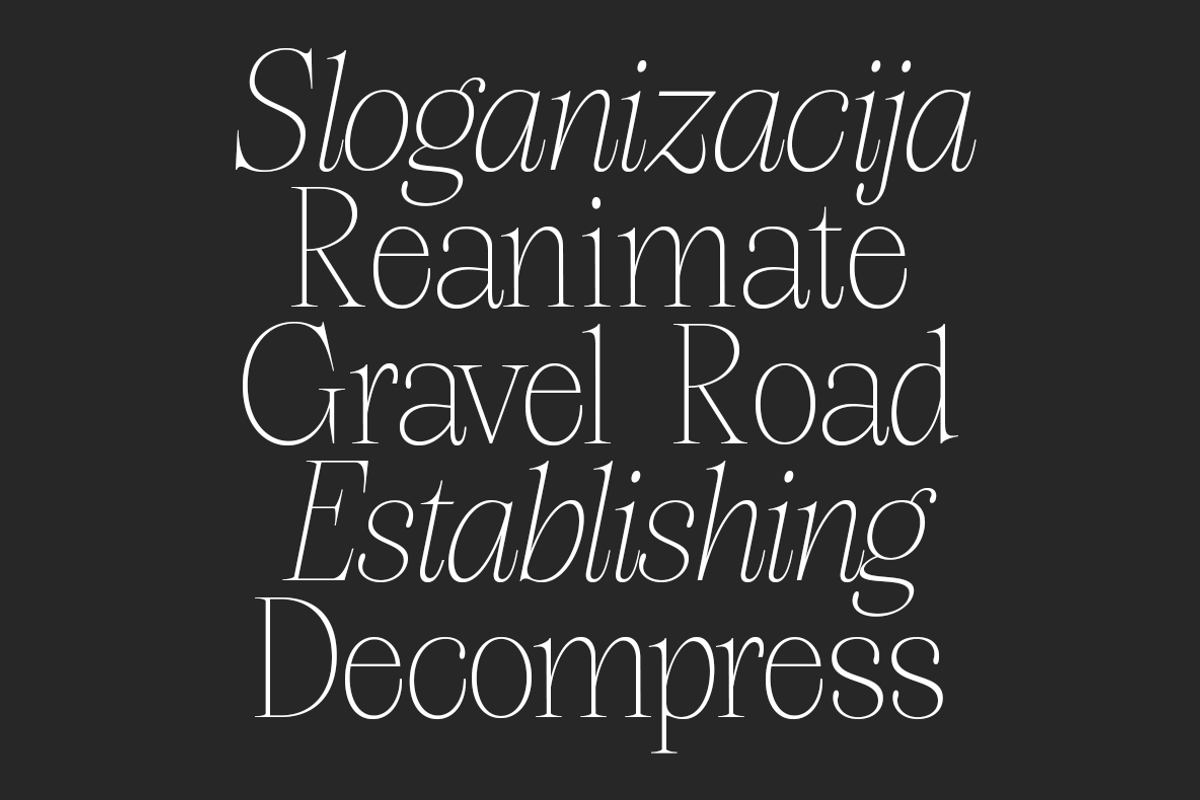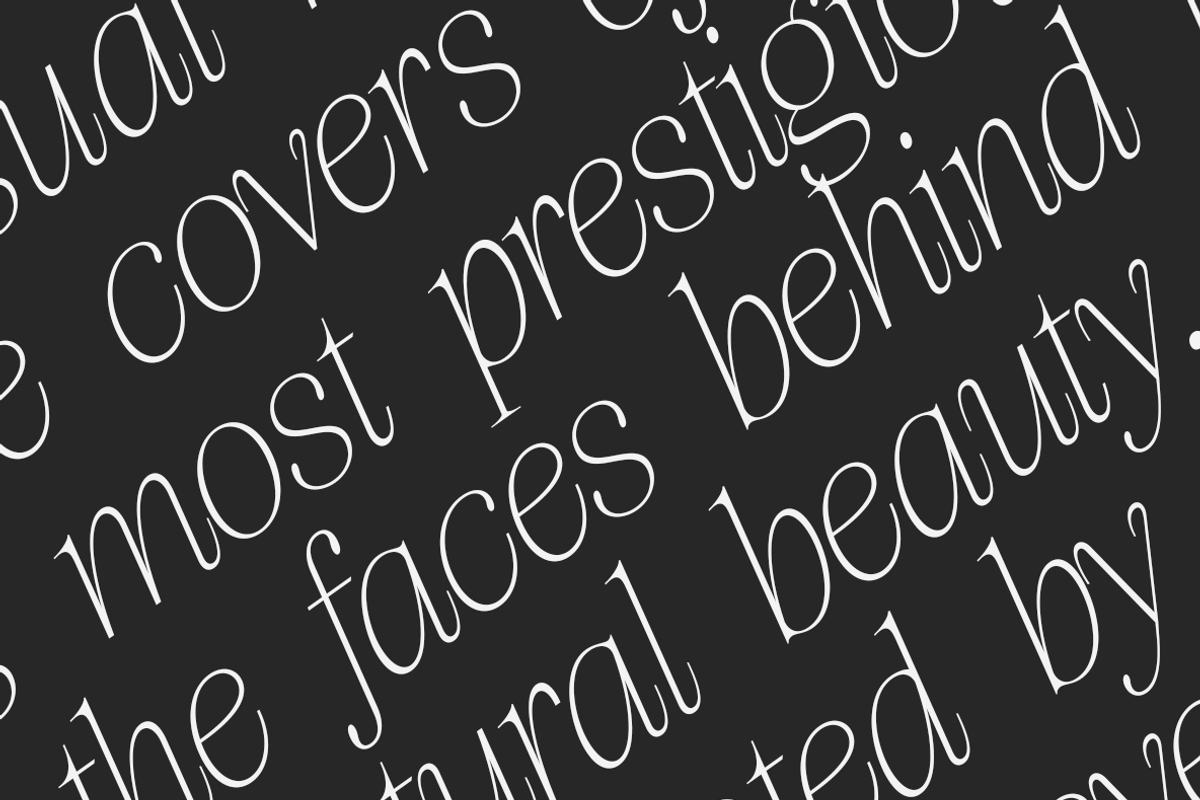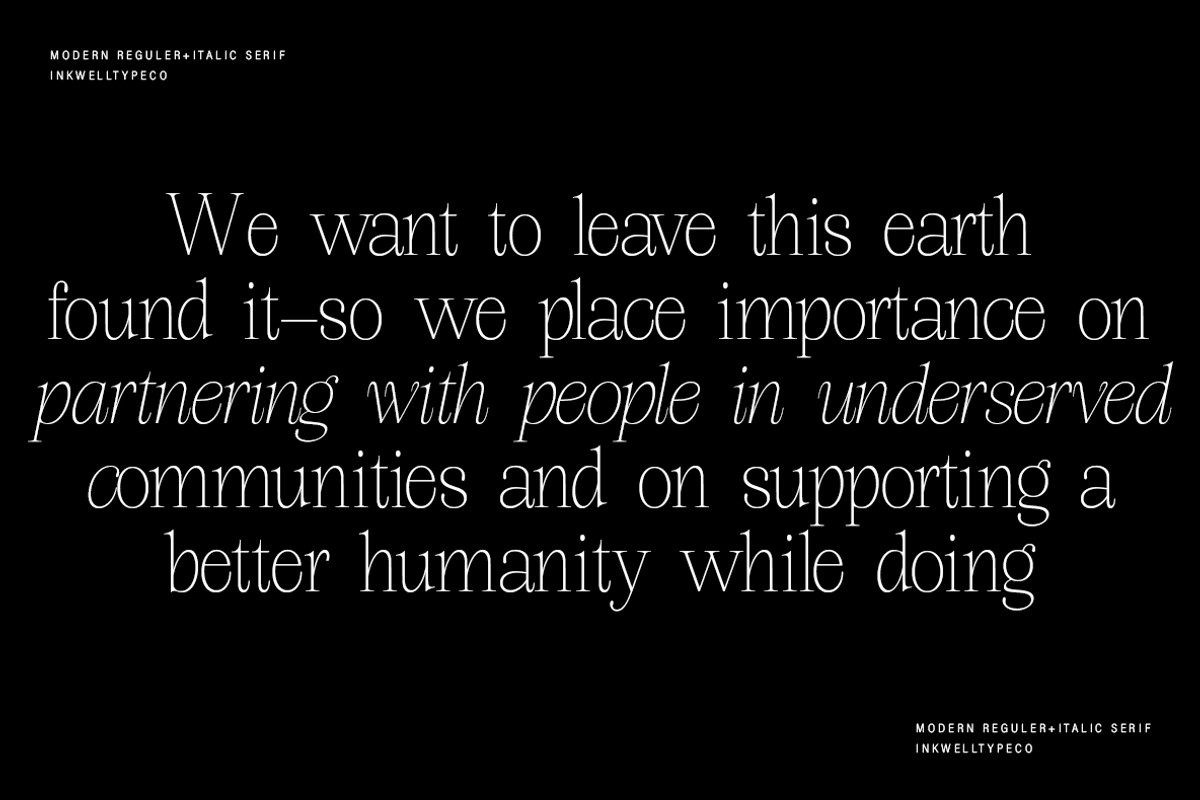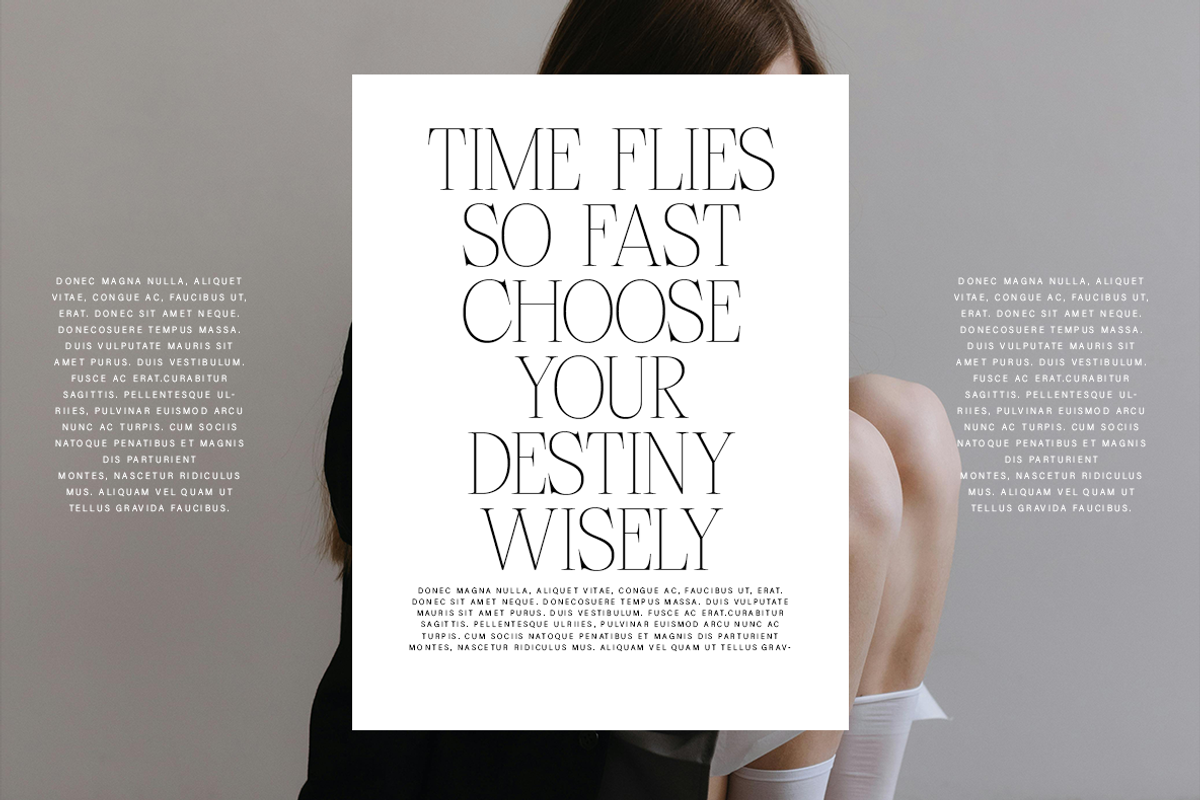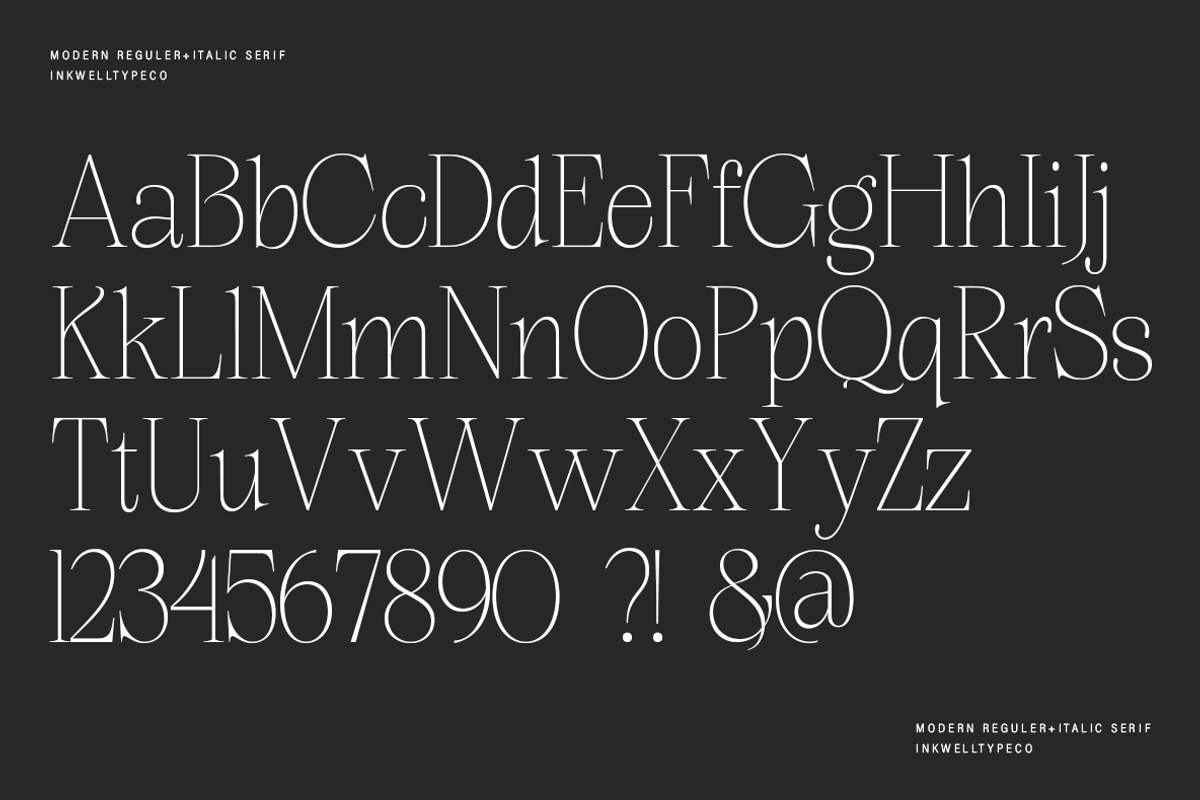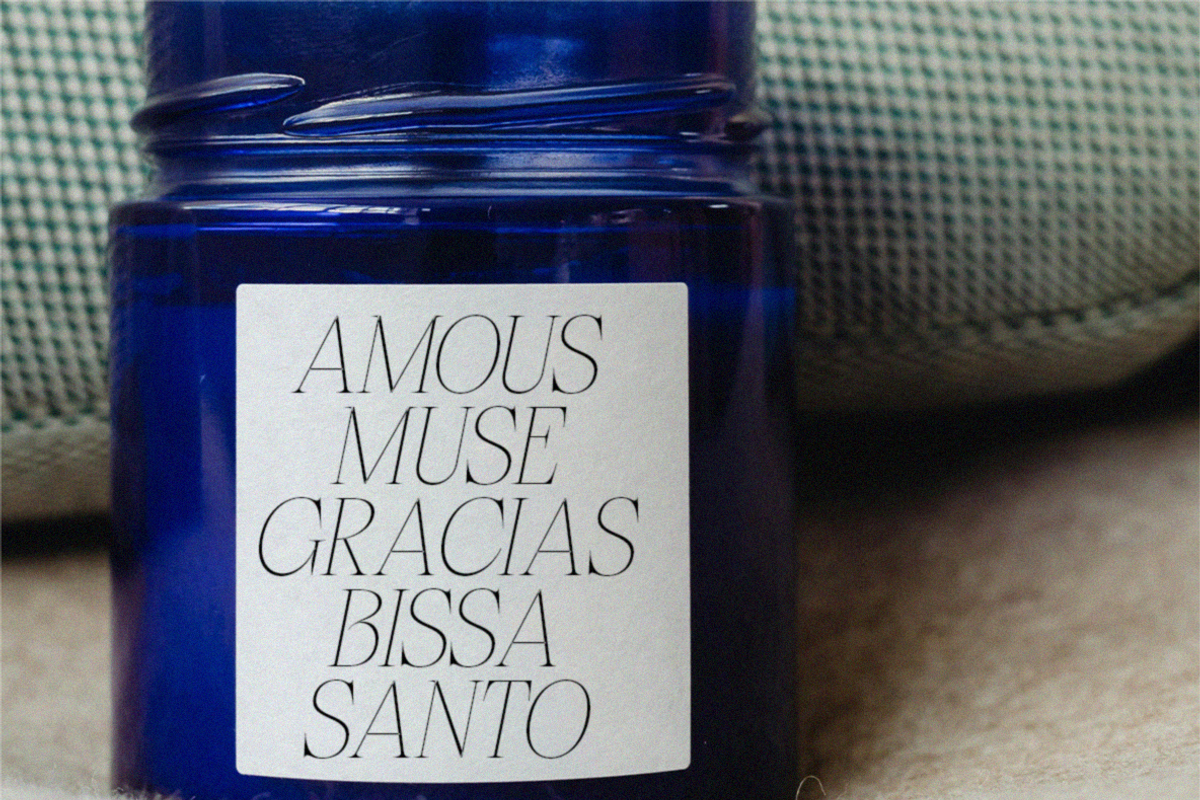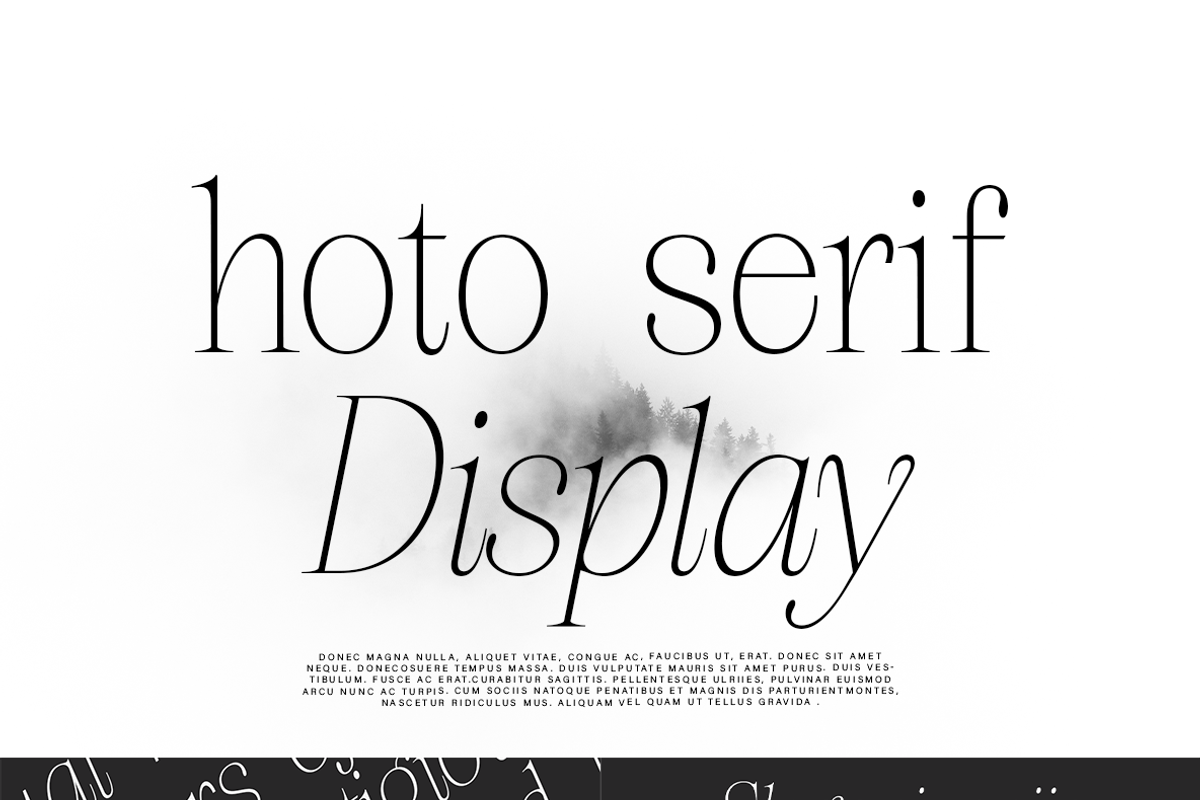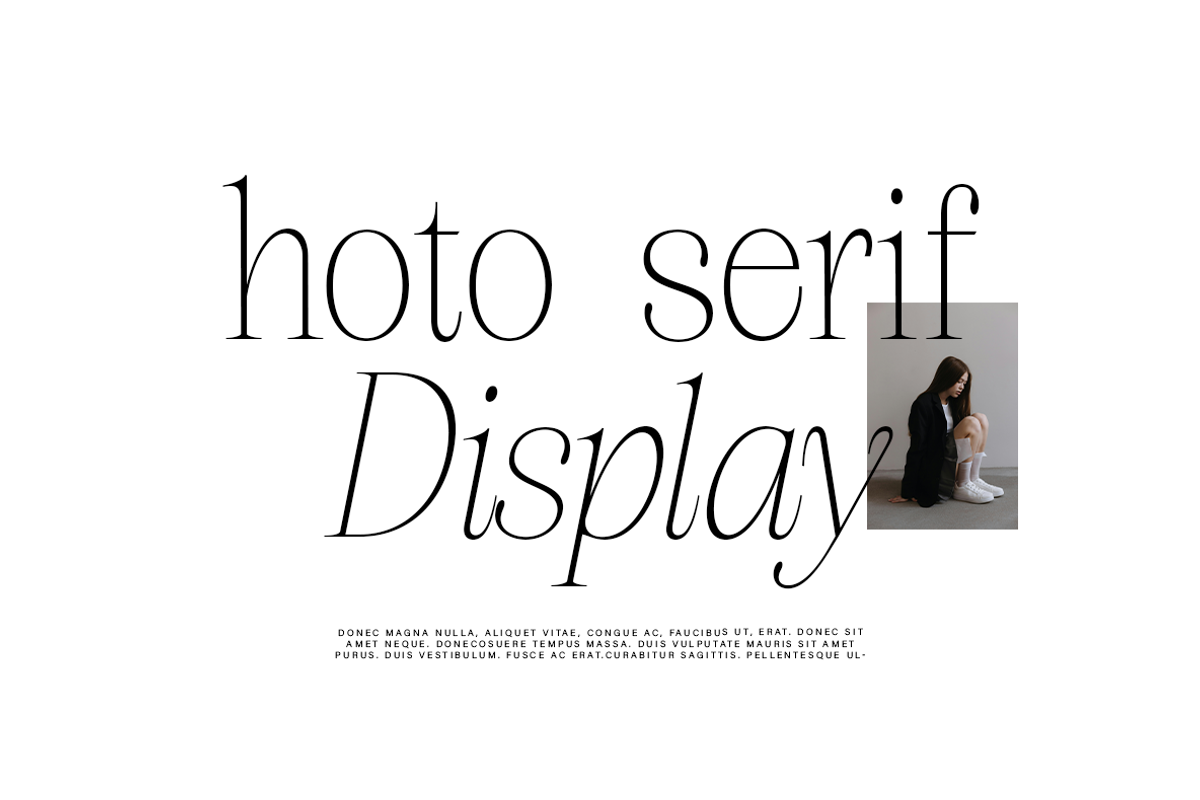
hoto serif display
Hoto Serif Display is a refined blend of elegance and simplicity, designed to offer a modern yet timeless appeal. This typeface comes in two styles, Regular and Italic, giving designers the flexibility they need to craft captivating and professional visuals. With thin strokes and well-balanced serif proportions, Hoto Serif Display is ideal for magazine headlines, luxury branding, art posters, and editorial projects.
The Regular style stands out with a minimalist and sophisticated aesthetic, perfect for clean and formal looks. Meanwhile, the Italic version adds a subtle dynamic touch with its graceful slant, bringing an artistic and soft feel — great for taglines, quotes, or design elements that need emphasis.
This font isn’t just a set of letters but a visual expression of creativity and character, elevating the design of every project it touches.